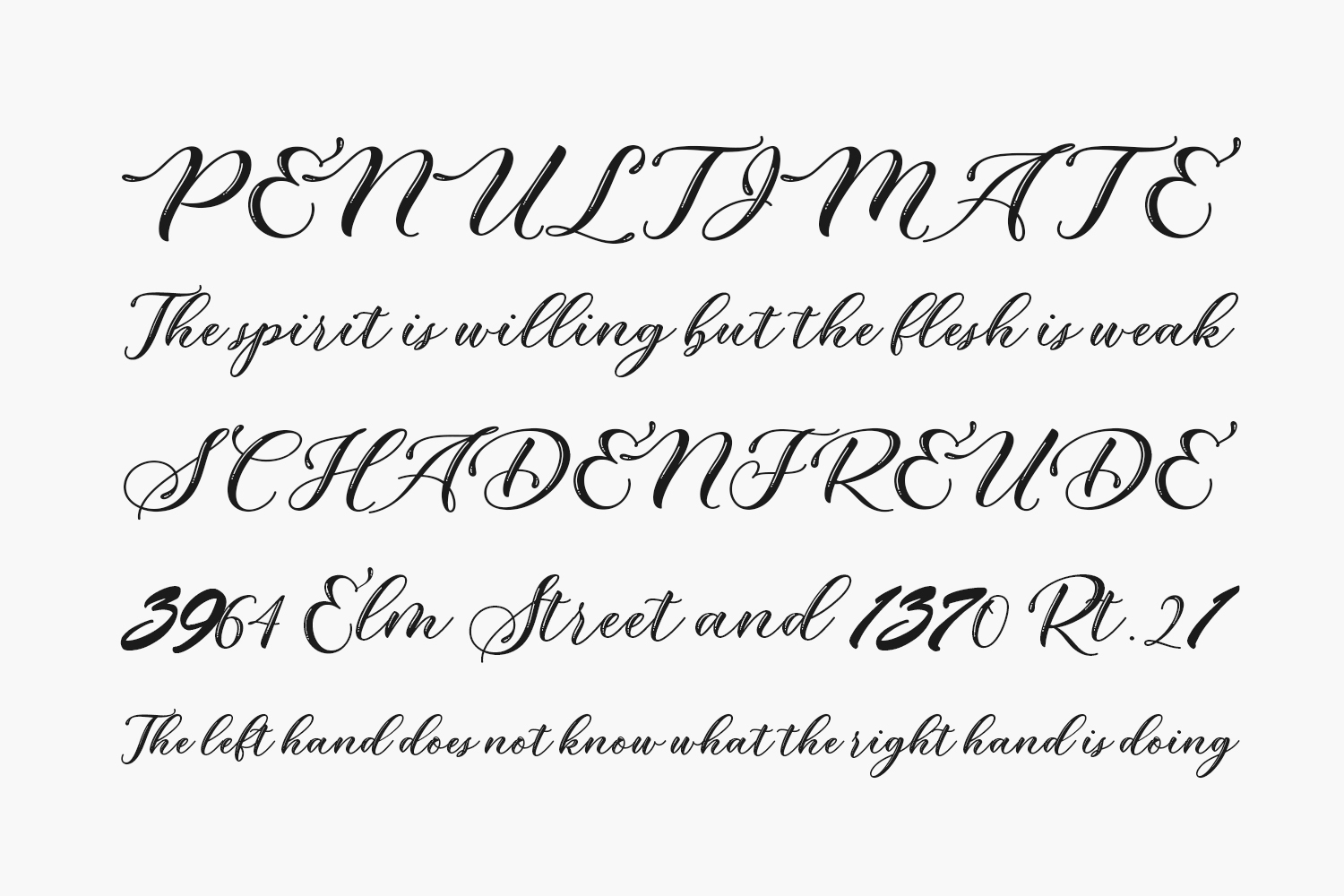
Demiela Free Font is a romantic and sweet calligraphy typeface with characters that dance along the baseline. It will add a luxury spark to any design project that you wish to create. Demiela Free Font was designed by Jamaluddin is a demo and free for personal use only. Please purchase the full version for commercial use.